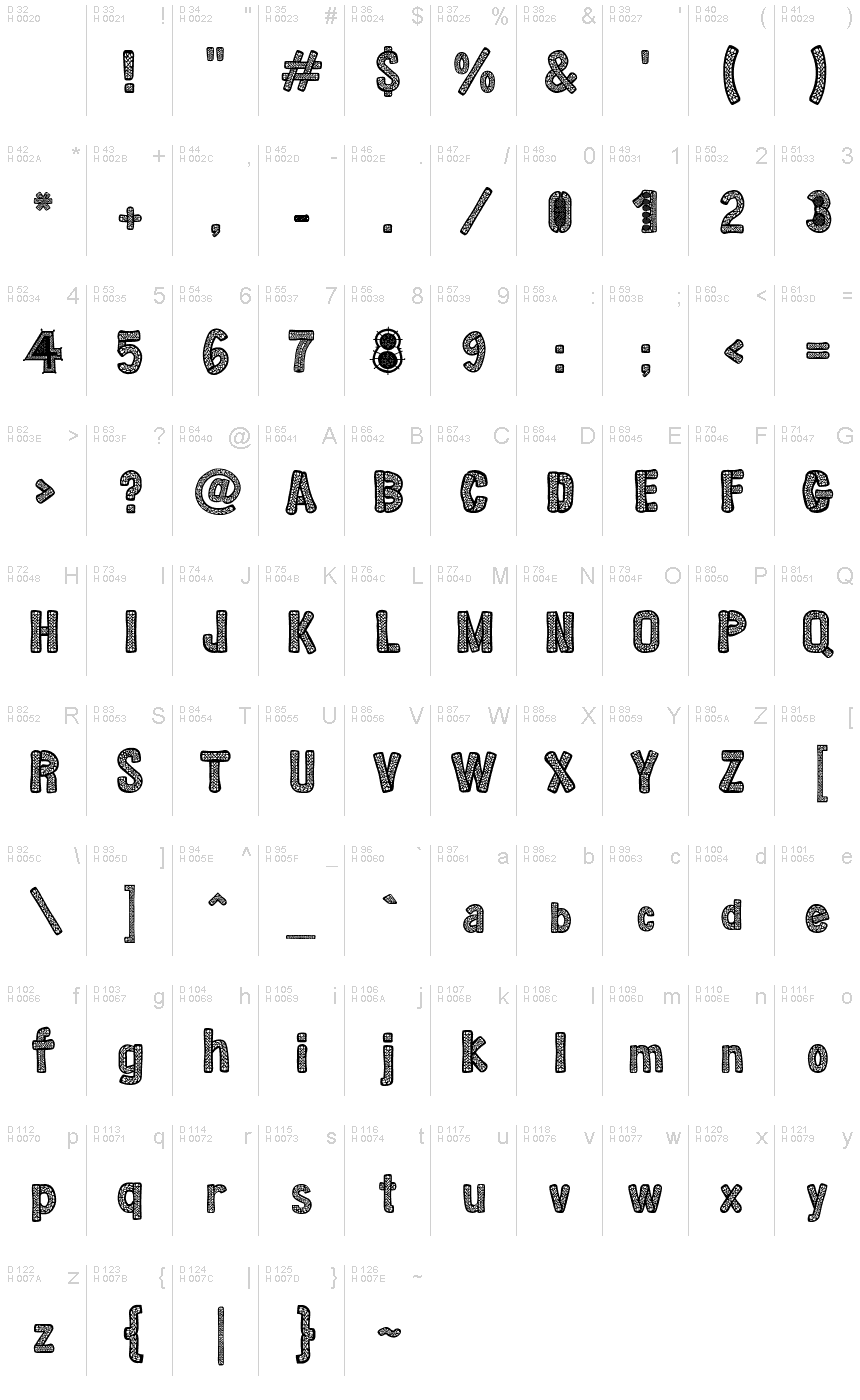
Lace Nice
Lace Nice font, designed by Galdino Otten, is a bold display typeface perfect for creating eye-catching and distinctive designs. With its decorative style and letters shaped as tyre marks, this font is ideal for projects that require an edgy and adventurous feel. Use Lace Nice to add a touch of excitement to posters, logos, album covers, or any design that needs a bold statement. Stand out from the crowd and unleash your creativity with this unique and visually striking font.